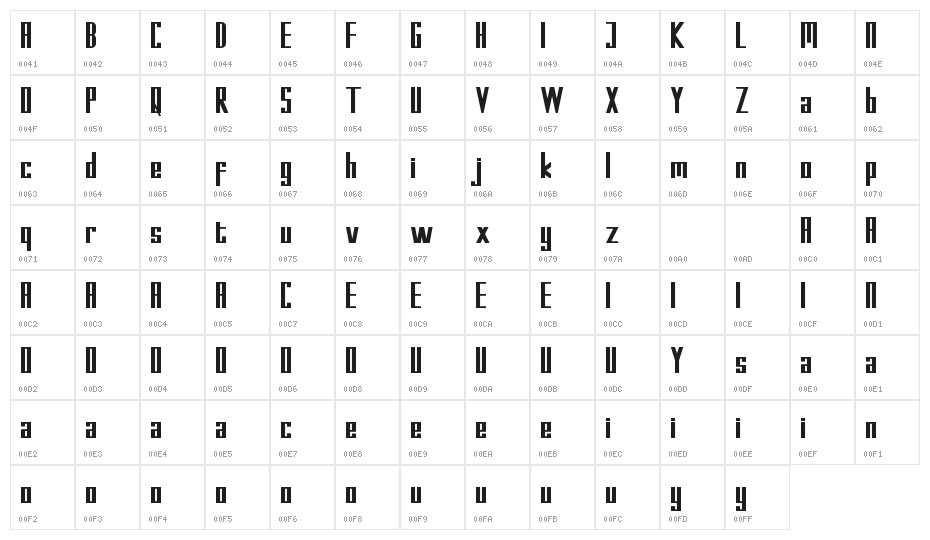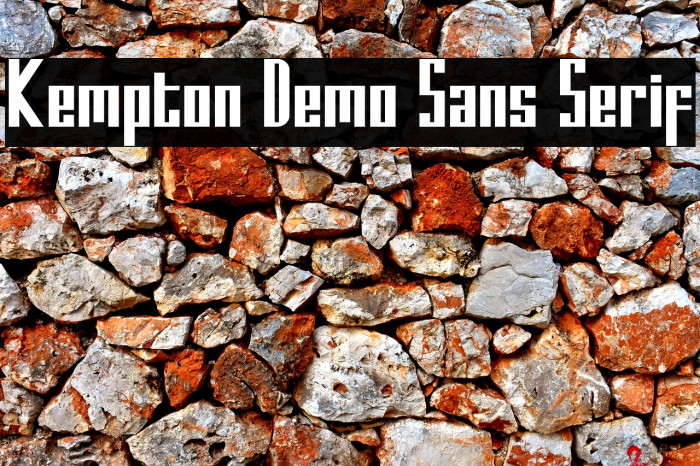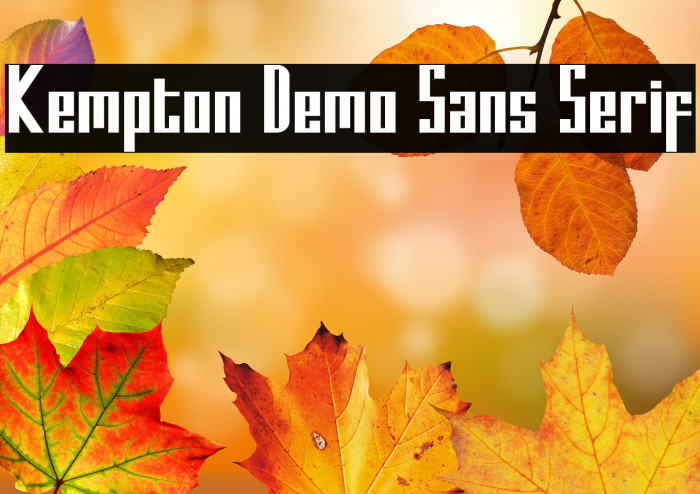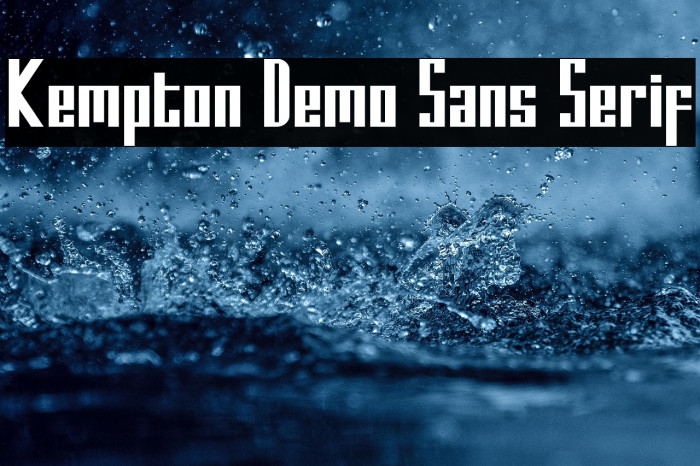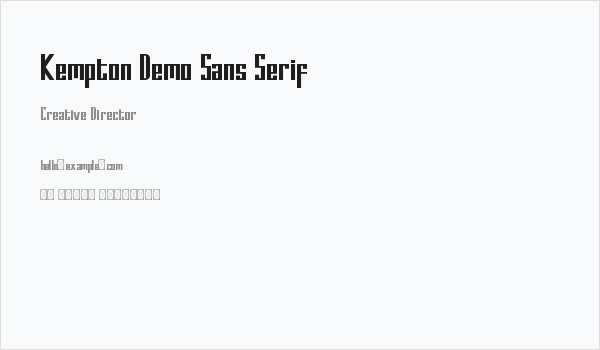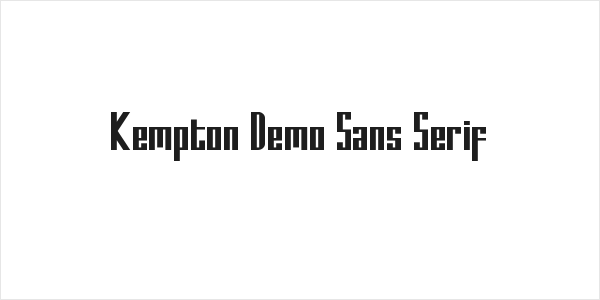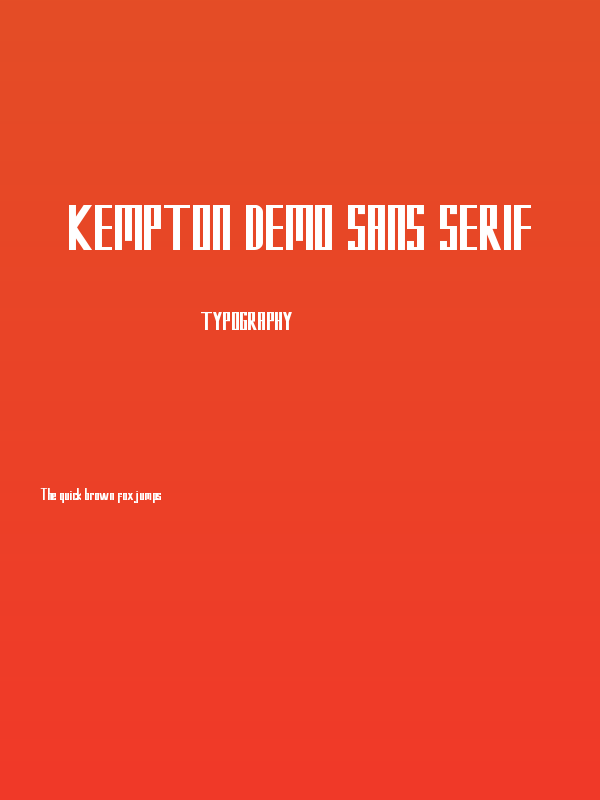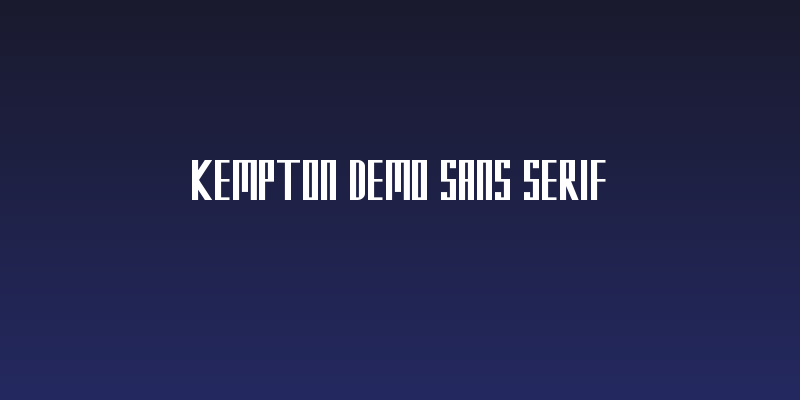
Kempton Demo Sans Serif Font
Kempton Demo Sans Serif Description
This font features a bold and striking design with a modern sans-serif style. The characters are tall and narrow, giving a condensed appearance that emphasizes verticality. The strokes are consistent in thickness, providing a uniform look across all characters. The uppercase letters are particularly prominent, with sharp angles and clean lines that convey a sense of strength and authority. The lowercase letters maintain this aesthetic, offering a cohesive and harmonious look. The numbers and special characters are designed to match the overall style, ensuring versatility in various applications. This font is ideal for projects that require a contemporary and impactful visual presence.
| Proposed Projects | Ideal for branding, posters, headlines, and any design requiring a strong, modern aesthetic. |